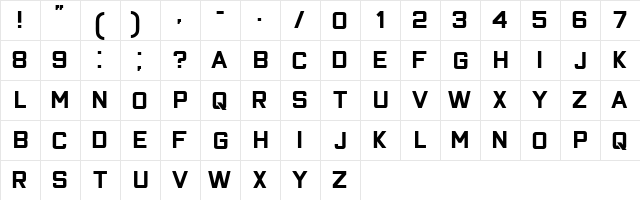
Closeness Regular
Design Context for Closeness Typeface
Closeness offers clean, dependable letterforms without strong stylistic allegiance, making it a practical choice for designers who need flexibility.